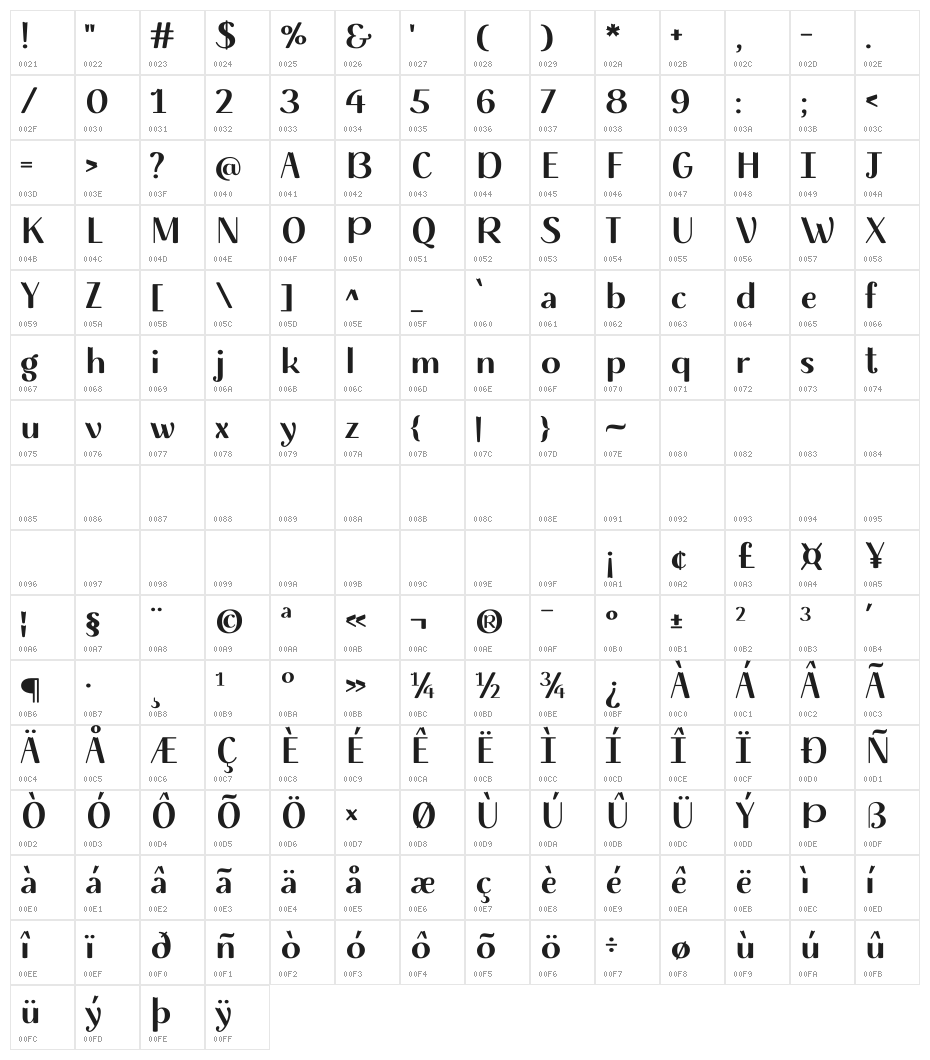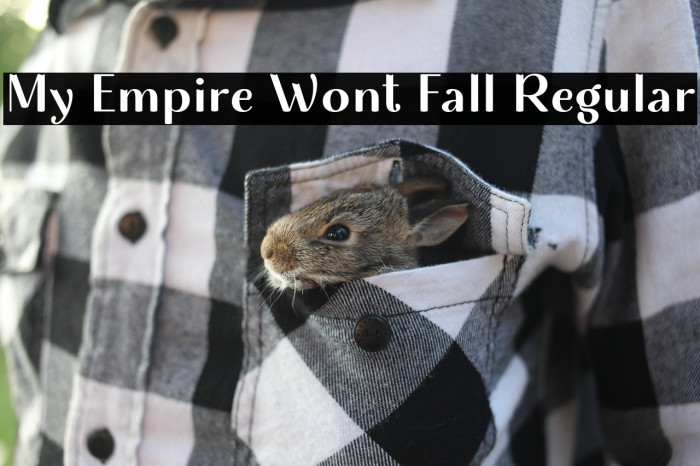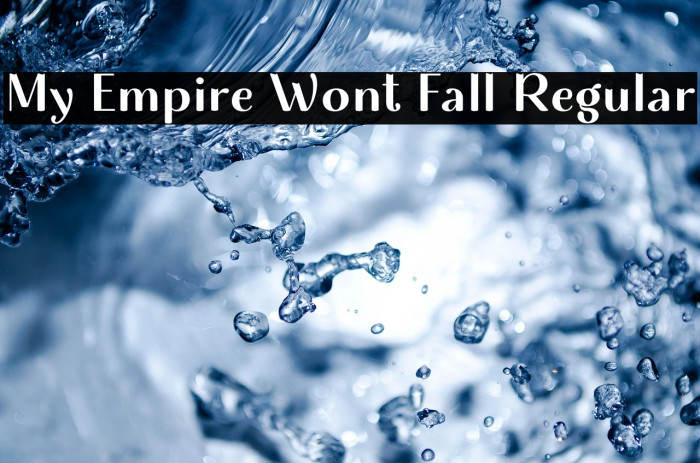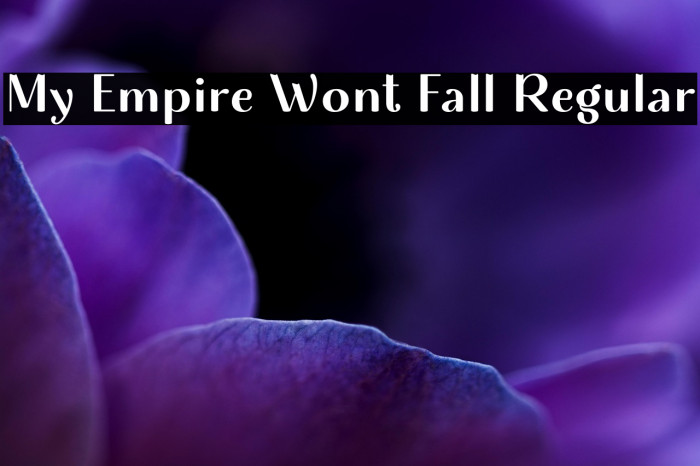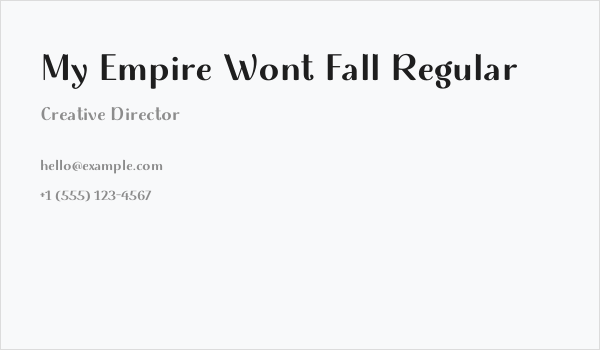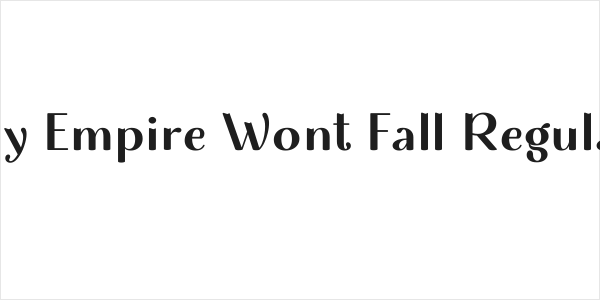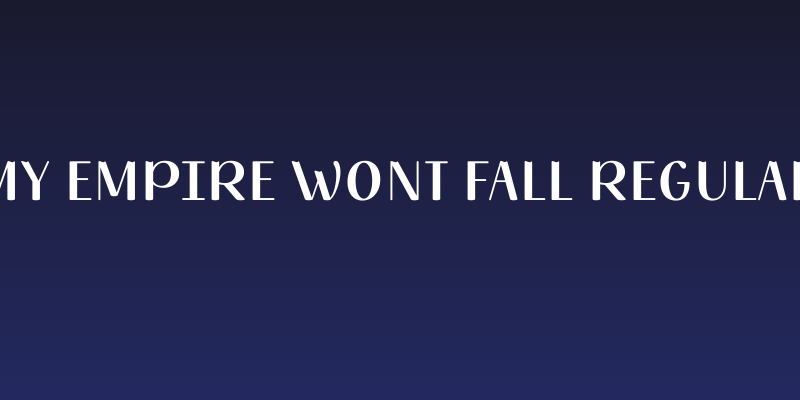
My Empire Wont Fall Regular Font
My Empire Wont Fall Regular Description
This font exhibits a bold and dynamic style, characterized by its thick strokes and high contrast between thick and thin lines. The uppercase letters are particularly striking, with a slight flair that adds a touch of elegance and sophistication. The lowercase letters maintain a consistent weight, providing a harmonious balance with the uppercase. The numerals are robust and clear, ensuring readability. Special characters are designed with the same attention to detail, making them stand out while remaining cohesive with the rest of the font. Overall, this typeface combines a classic serif structure with modern elements, making it versatile for various design needs.
| Proposed Projects | Ideal for branding, editorial design, and impactful headlines. |